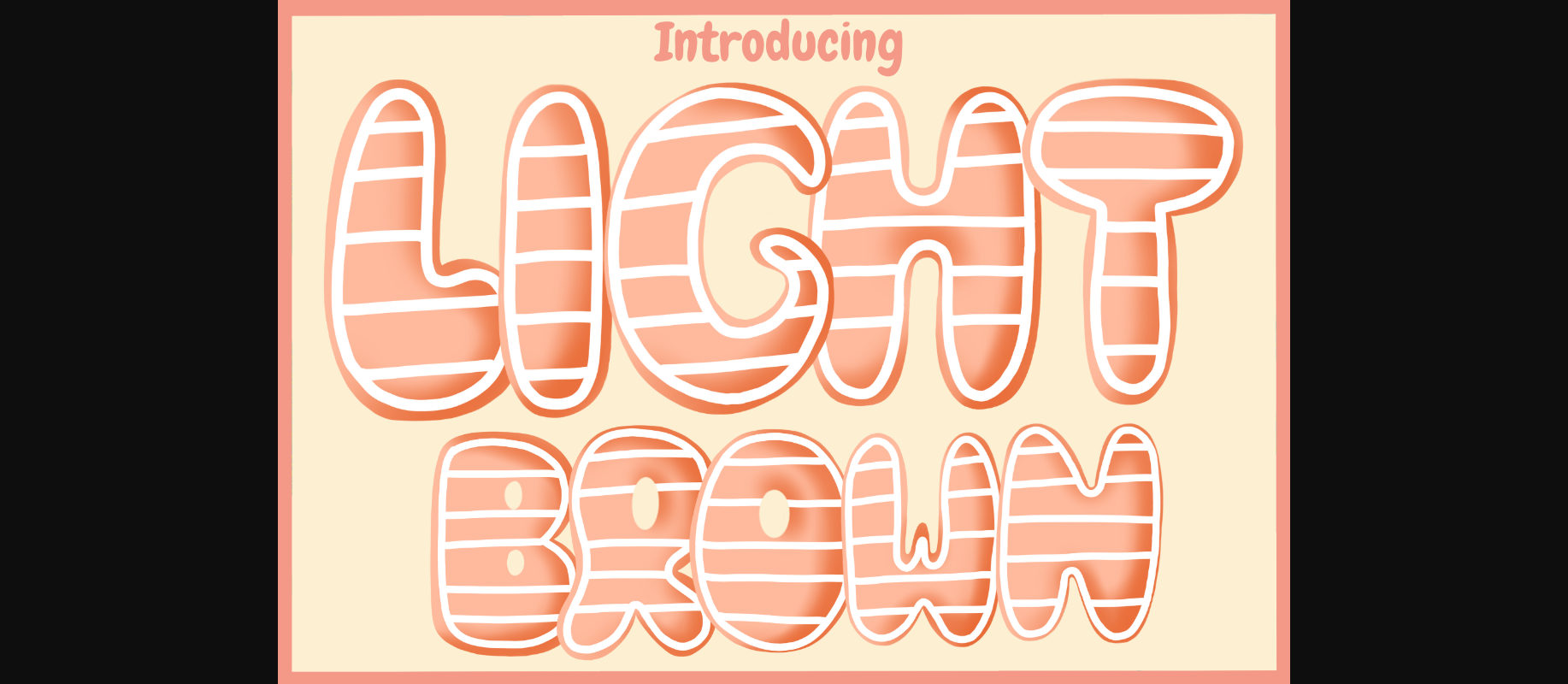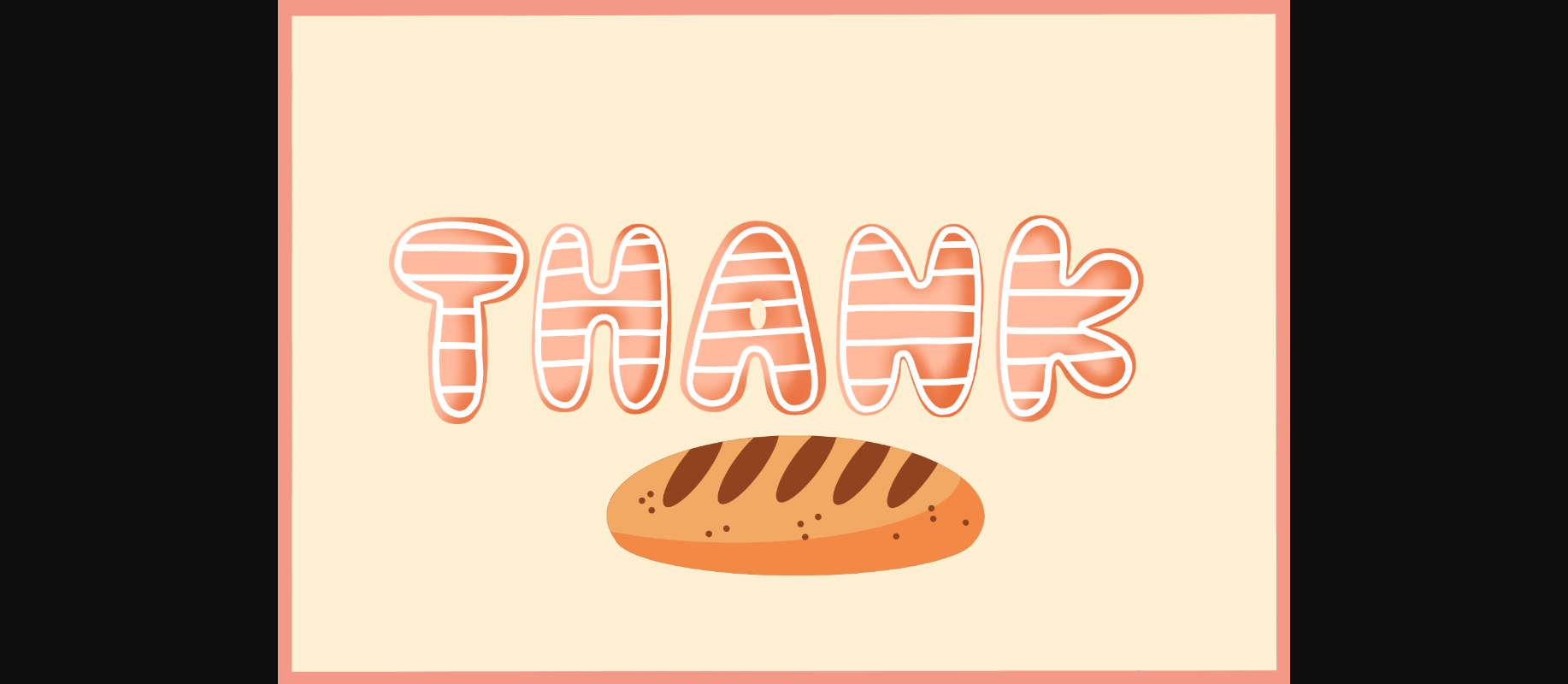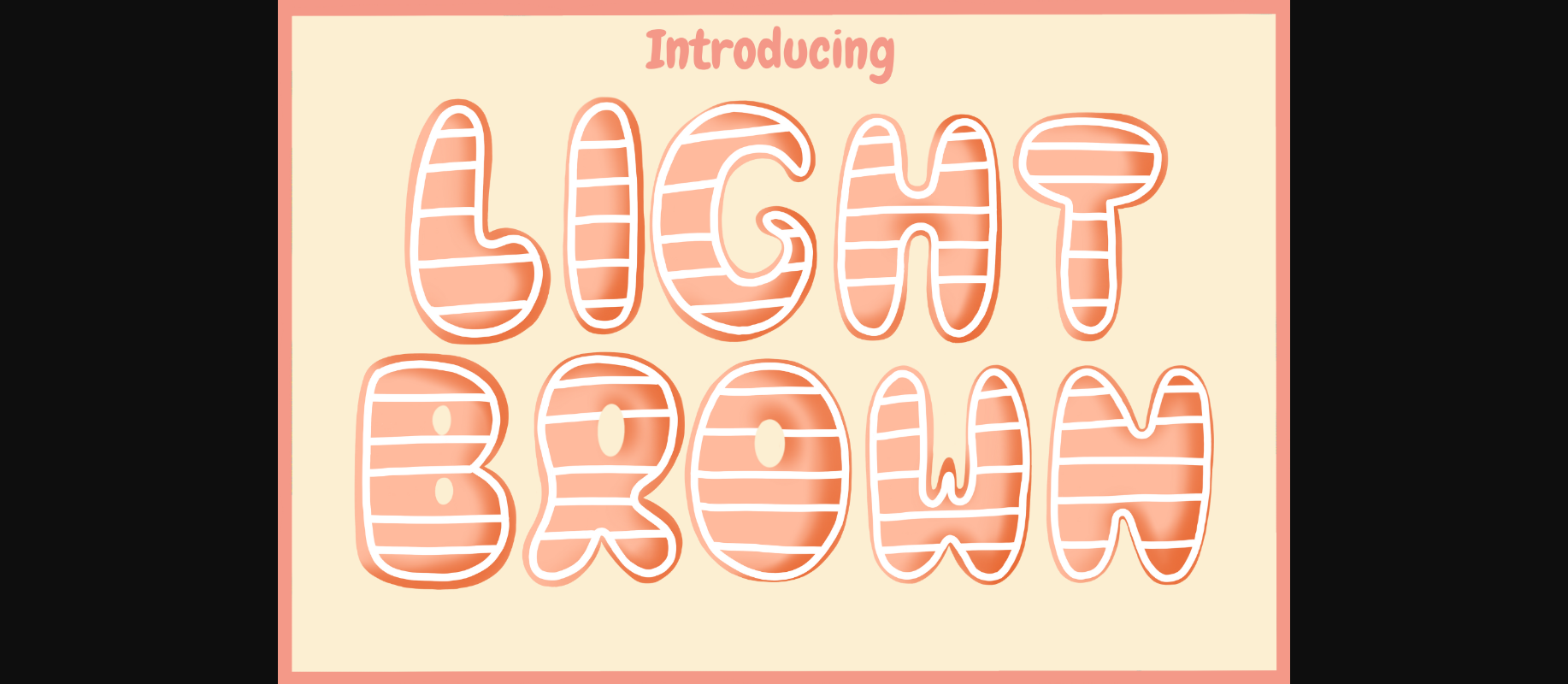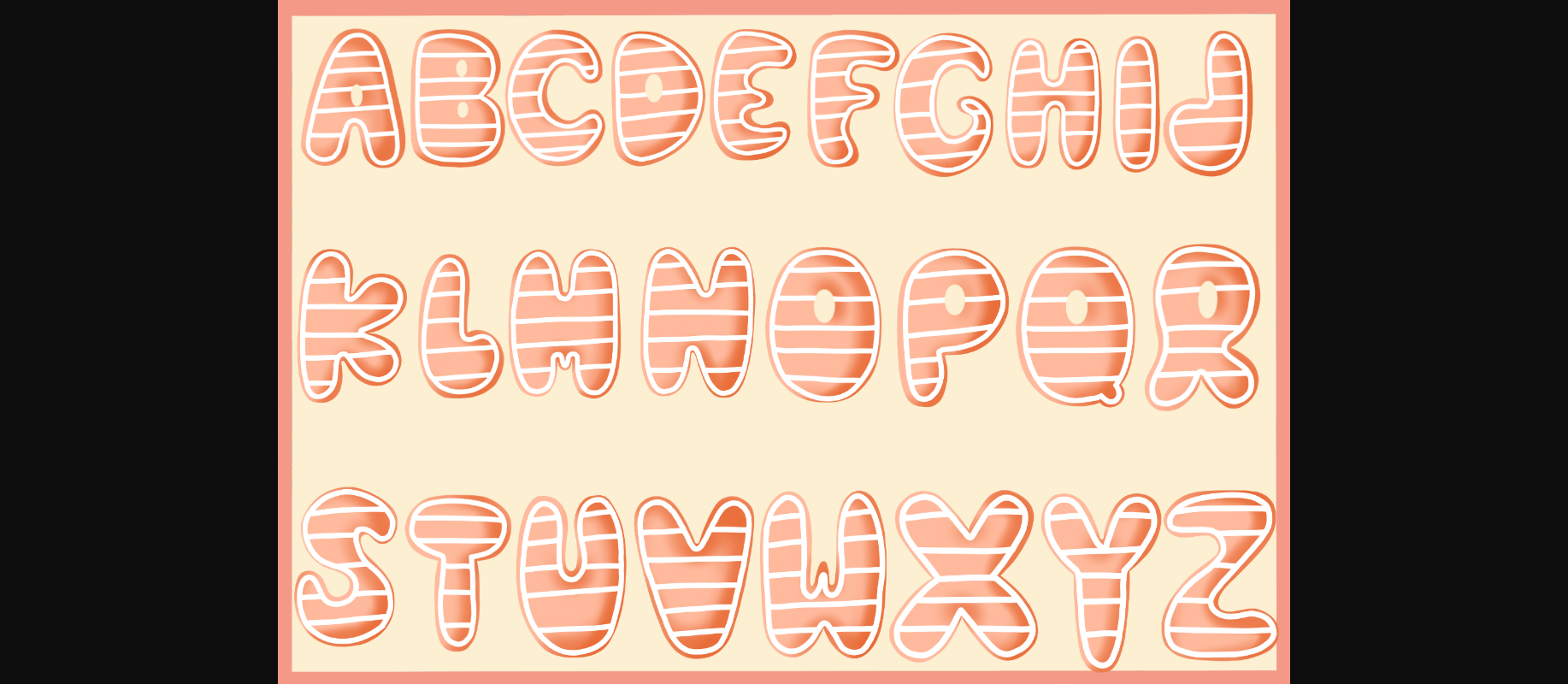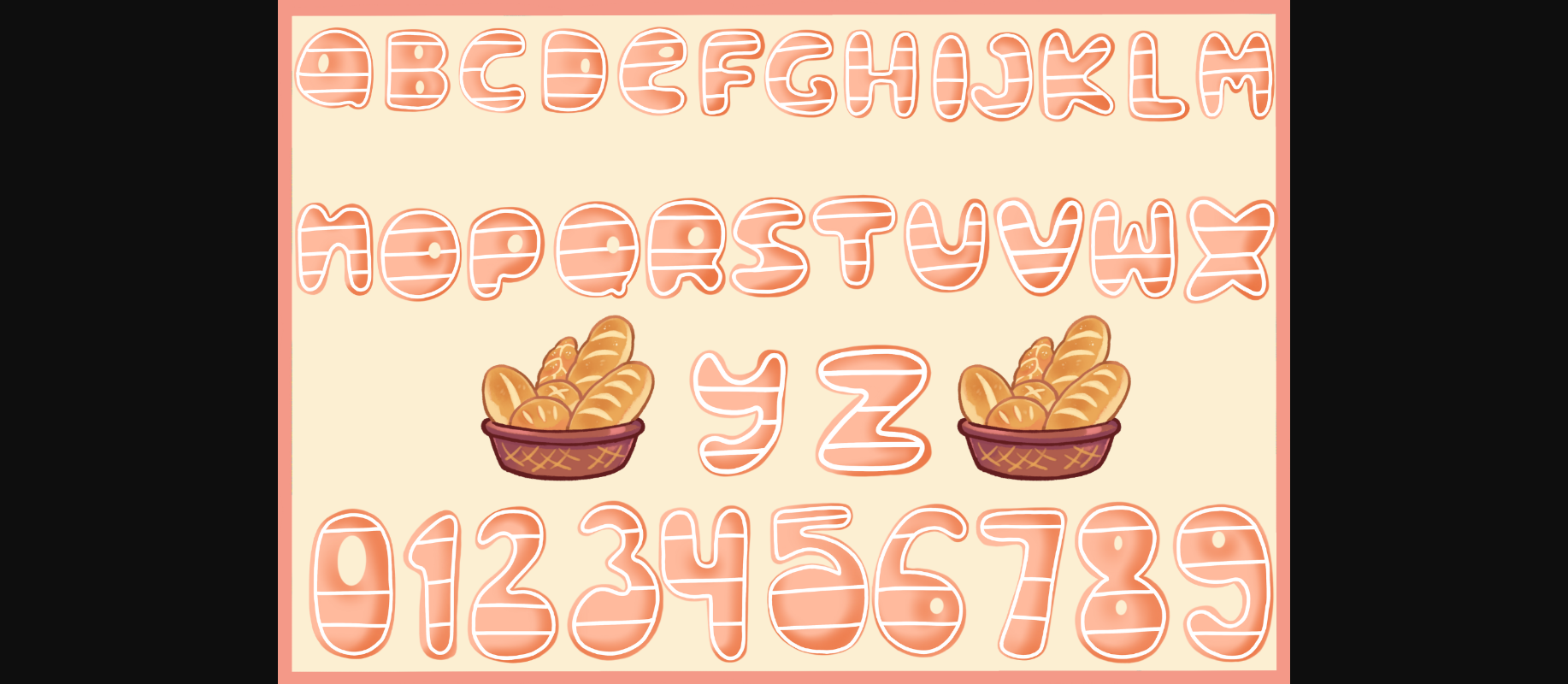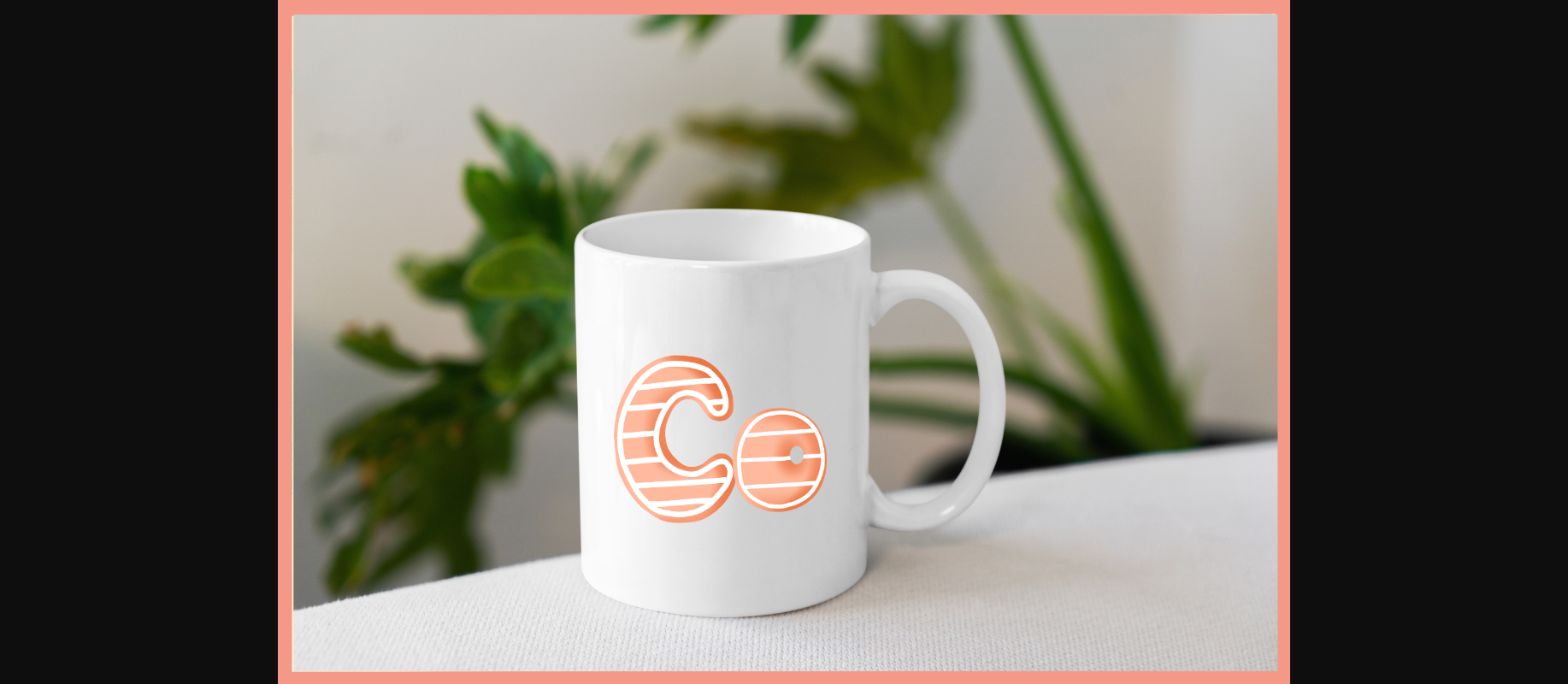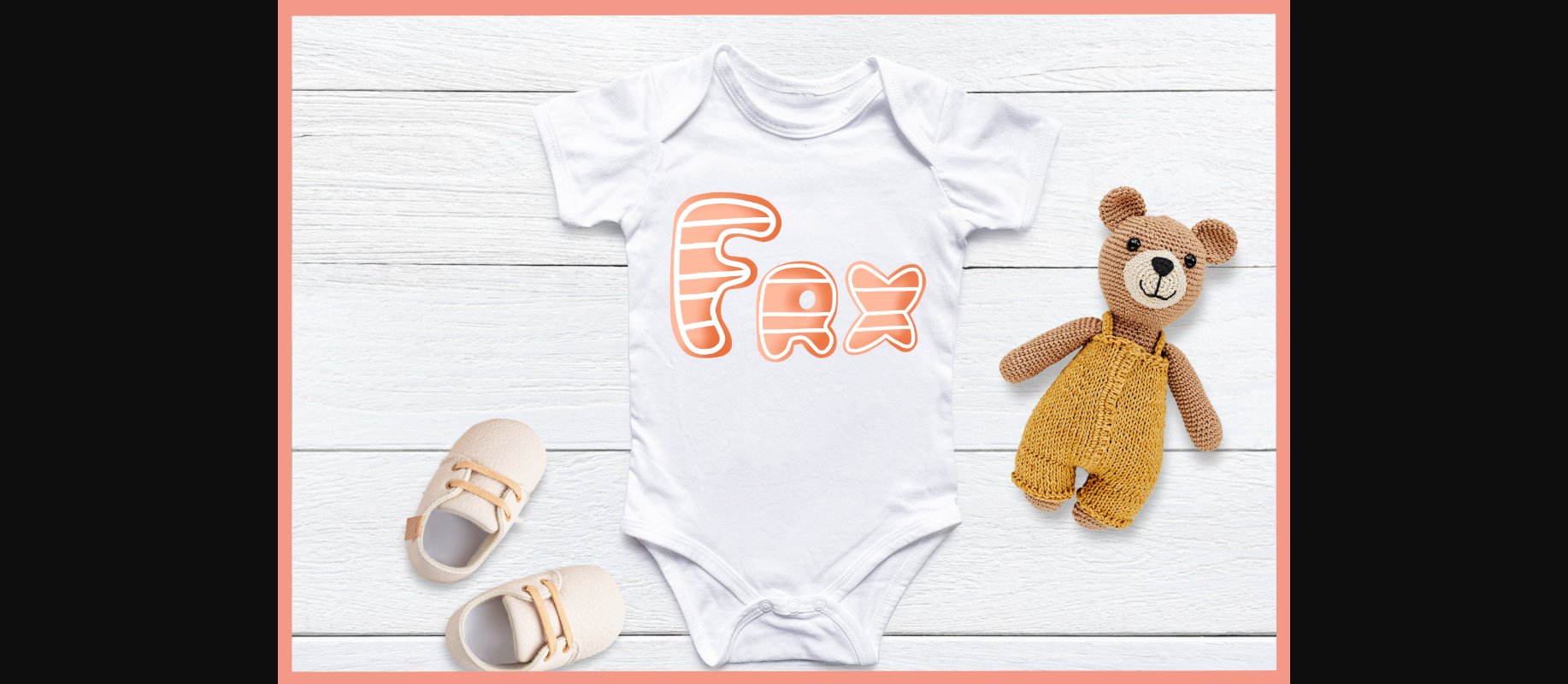
HomeDecorative FontsLight Brown Font Decorative Fonts Light Brown Font FacebookXPinterestWhatsApp 1 of 10 ... Light Brown Font Poster 2... Light Brown Font Poster 3... Light Brown Font Poster 4... Light Brown Font Poster 5... Light Brown Font Poster 6... Light Brown Font Poster 7... Light Brown Font Poster 8... Light Brown Font Poster 9... Light Brown Font Poster 10... About Light Brown Font With this font, your messages will become really super cute. This font is perfect for posters, greeting cards, t-shirts, branding materials, quotes, and any other amazing projects you are working on. DOWNLOAD NOW People also explored Absolute Font Minimalis Font Durian Lovers Font Almeera Font Yulista Sister Font The Linestay Font Sweet Heart Font Grittania Font Ambercity Font 335 0 TagsLight Brown Font Previous articleRetro Friday FontNext articleFrankyween Font LEAVE A REPLY Cancel reply Comment: Please enter your comment! Name:* Please enter your name here Email:* You have entered an incorrect email address! Please enter your email address here Website: Save my name, email, and website in this browser for the next time I comment. Personal Use Free Nickainley Personal Use Free Read more about this font Starry Cakes Personal Use Free Read more about this font Luxima Personal Use Free Read more about this font Cintya Personal Use Free Read more about this font BLOG 5 Fonts That Will Dominate Design Trends in 2026 5 Fonts for 2026 That Will Dominate Design Trends Typography plays a critical role in visual communication, and as we look ahead to 2026, it’s... Best Fonts for YouTube Videos: Make Your Thumbnails Stand Out Top 10 Handwritten Fonts That Elevate Your Designs Elegant Wedding Invitation Fonts – Handwritten & Script Fonts